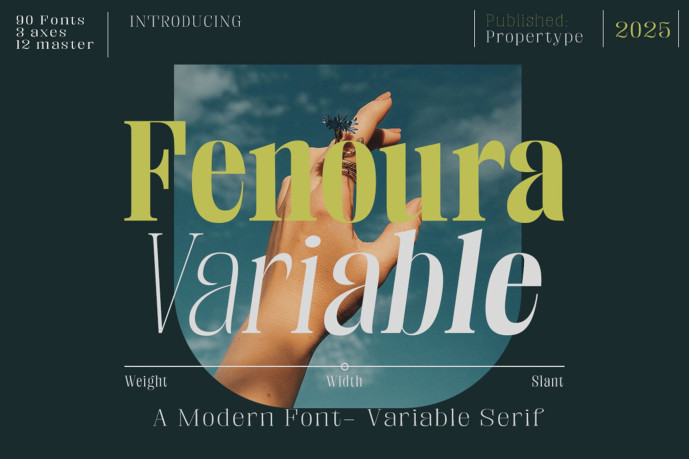
Fenoura Serif Font
Fenoura Serif Font features high contrast, strong ink adhesion, sharp shapes, and clean cuts to create a luxurious and elegant feel with a distinctive look. Each typeface has a warm personality and a contemporary look. With a variety of different styles, you can choose the best result for your design. You can vary the feel of your design, from subtle to bold, to the most striking style. Fenoura Serif is a brilliant choice for branding, identity design, editorial design, logo design, display and packaging design, and more.